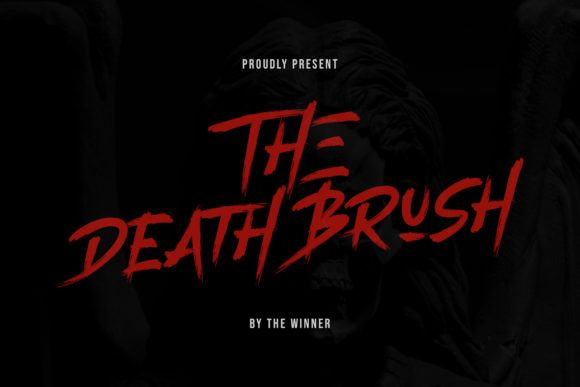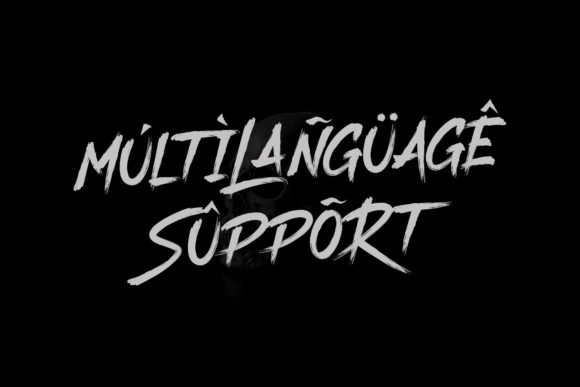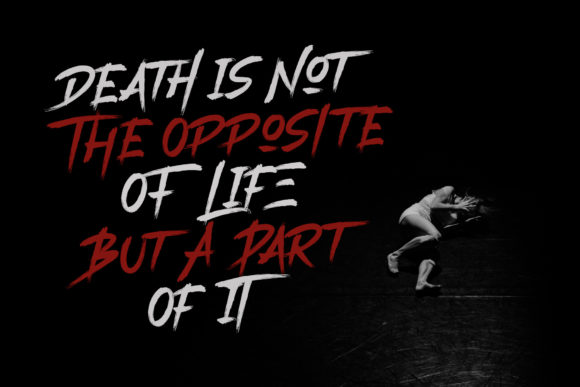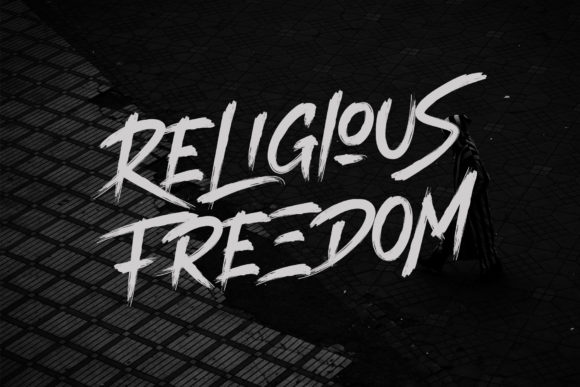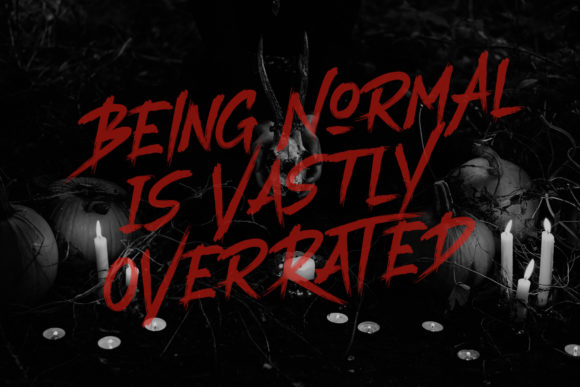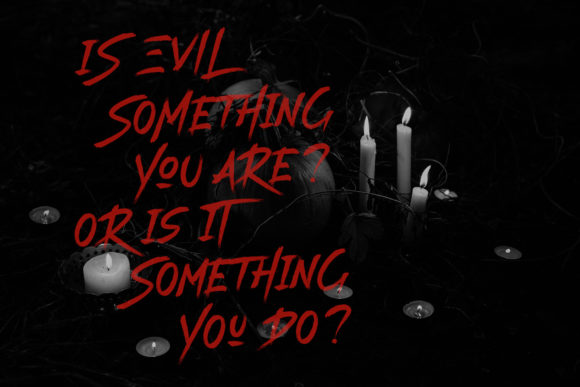
The Perfect Font for Your Next Design Project
Have you ever stared at a blank page, trying to come up with the perfect font to bring your creative vision to life? You’re not alone. Many designers face this challenge daily. But what if you could have the perfect font to elevate your designs and leave a lasting impression? Enter the Death Brush Font, a modern display font designed to add a touch of sophistication to any project.
This versatile font is perfect for branding, product packaging, invitations, quotes, and more. Its simplicity and modern design make it a valuable asset for any designer looking to add a unique touch to their work. With the Death Brush Font, you can take your designs from ordinary to extraordinary, making it a must-have for any creative project.
Key Features of Death Brush Font
- Font Style: A distressed, brush-style font with a rough, hand-painted look.
- Unique Characteristics: Features a unique, distressed texture and a hand-painted look that gives it a vintage feel.
Death Brush Font Review
Overall, I’m quite impressed with the Death Brush Font. It’s a unique and bold font that can add a touch of edginess to any design project. ✨ The font’s irregularities and imperfections give it a handmade feel that’s perfect for creating a sense of grit and realism.
The font is highly customizable, allowing you to adjust the spacing and line width to suit your needs. This flexibility makes it a great choice for designers who want to create a consistent look and feel across their project.
- Unique and bold design that adds a touch of edginess to any project
- Highly customizable, allowing for adjustments to spacing and line width
- Perfect for creating a sense of grit and realism
Limitsations:
- May not be suitable for projects that require a clean and minimalist aesthetic
- Some characters may be difficult to read at smaller font sizes
- May require additional design elements to balance out the font’s boldness
In terms of overall impression, I’d say the Death Brush Font is a solid choice for designers who want to add some edge to their projects. While it may have some limitations, its unique design and high level of customization make it a versatile and effective font.
The Death Brush Font is ideal for creating a vintage or distressed look. Use it for:
– Retro-themed designs
– Horror or thriller movie posters
– Distressed text effects
– Creating a unique and eye-catching visual style